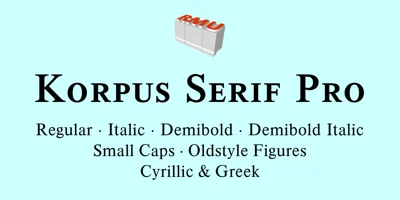
Korpus Serif Pro Font
Please note, you must purchase this font for commercial use. You can download Korpus Serif Pro Font for testing purposes and explore its elegant, professional design. Korpus Serif Pro Font is perfect for high-end branding, editorial content, book covers, and any project that requires a refined, classic serif style.
With its clean, modern serif structure and balanced proportions, Korpus Serif Pro Font adds sophistication and readability to your designs. It's ideal for long-form text, headlines, and any project where clarity and elegance are important.
Korpus Serif Pro Font supports multilingual characters, making it suitable for global projects. Its legible design ensures readability across both print and digital formats, making it perfect for various creative applications.